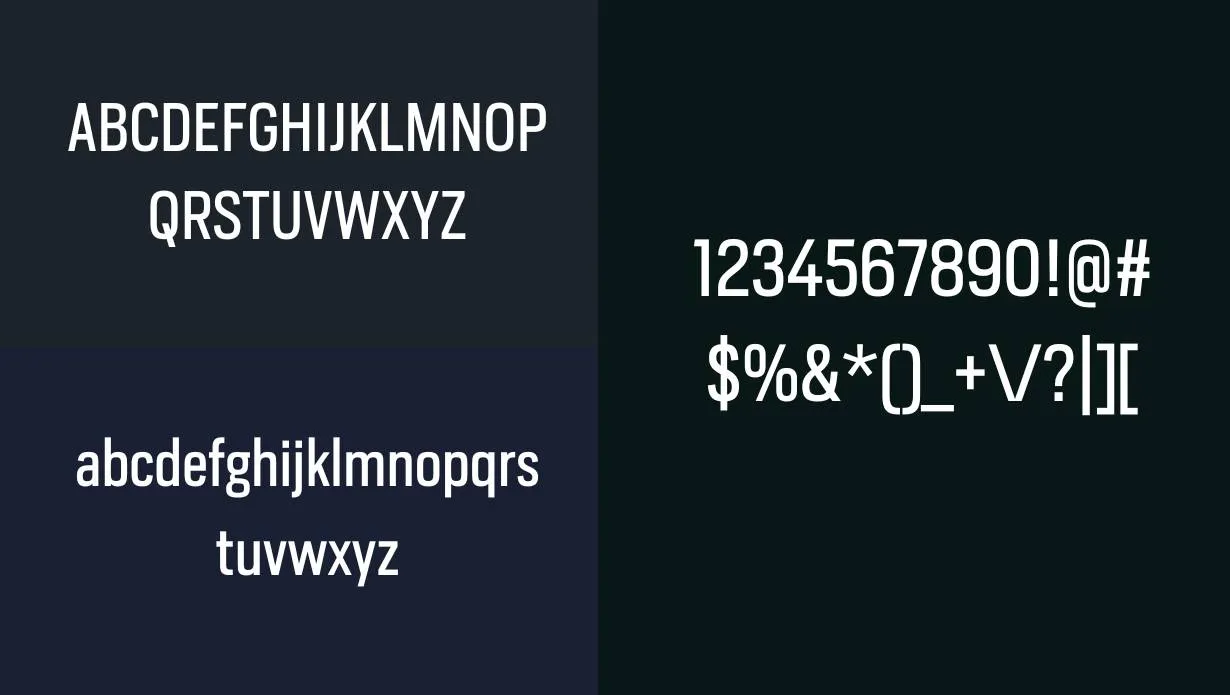
The Heron Sans Font is a modern, clean, and versatile typeface suitable for a wide array of designs. Its simplicity makes it perfect for professional documents, websites, or corporate branding. In Adobe Photoshop, this font is often used for clean and sleek text in designs like business cards or company logos.
When used in CSS, it offers a polished and professional look to web content, making it easy to read and modern. Canva users often opt for this font for creating professional presentations, reports, or designs that require a crisp and contemporary feel.
| Name | Heron Sans Font |
| Designer | Cyrus Highsmith |